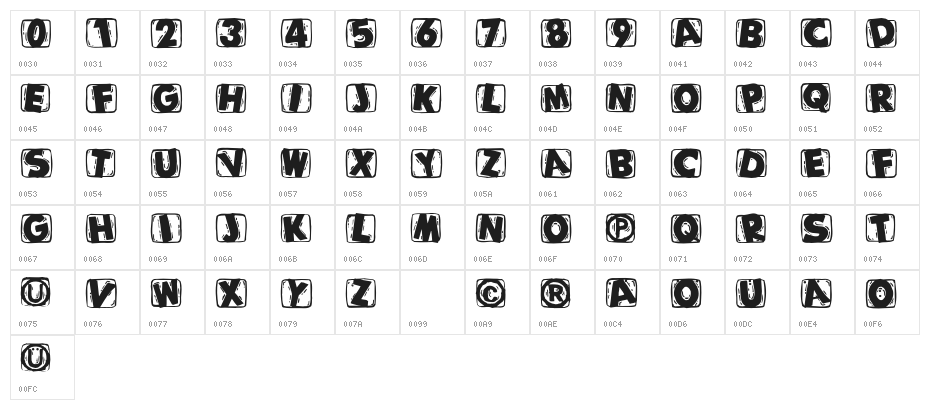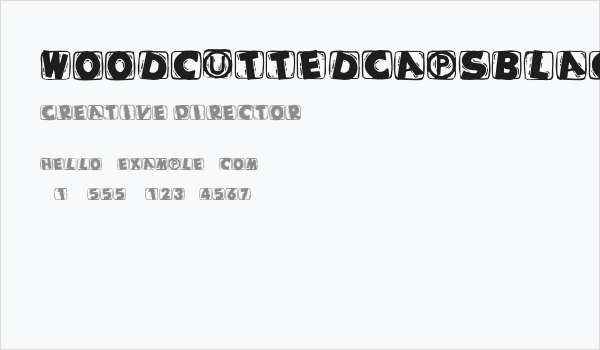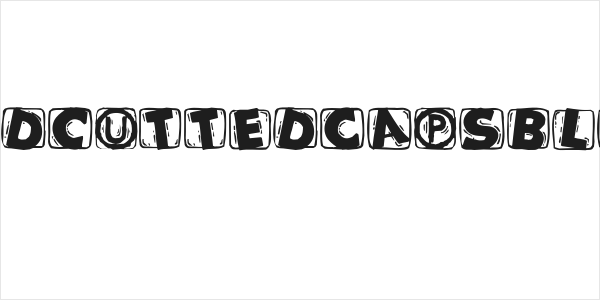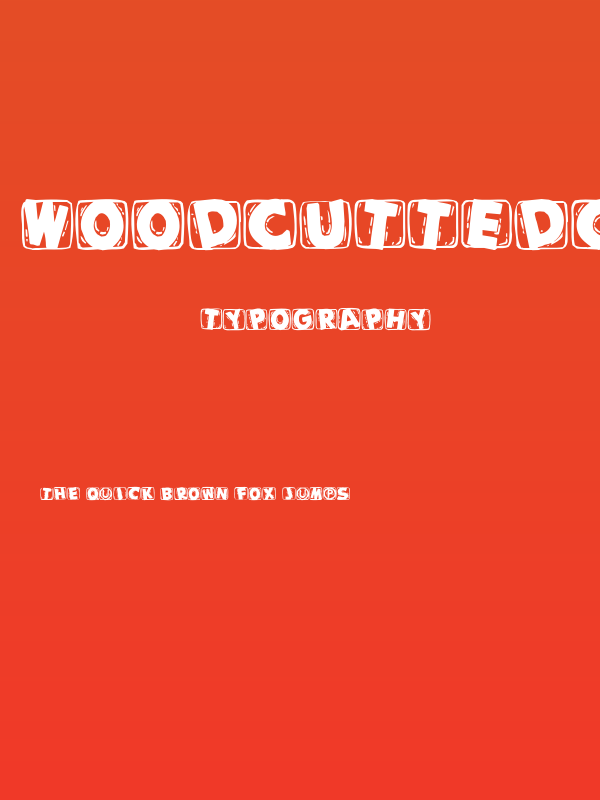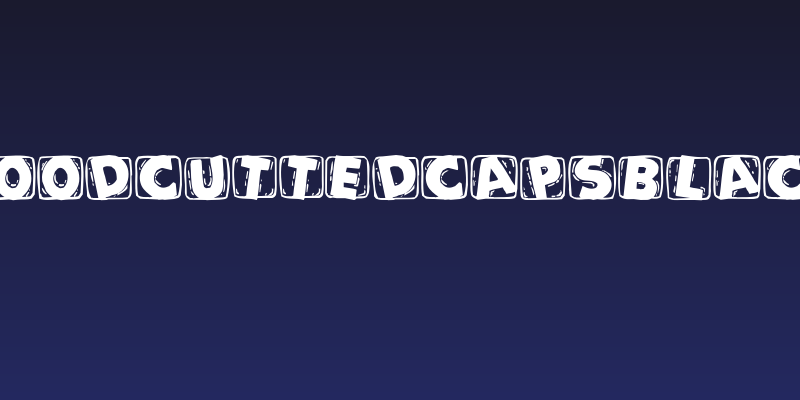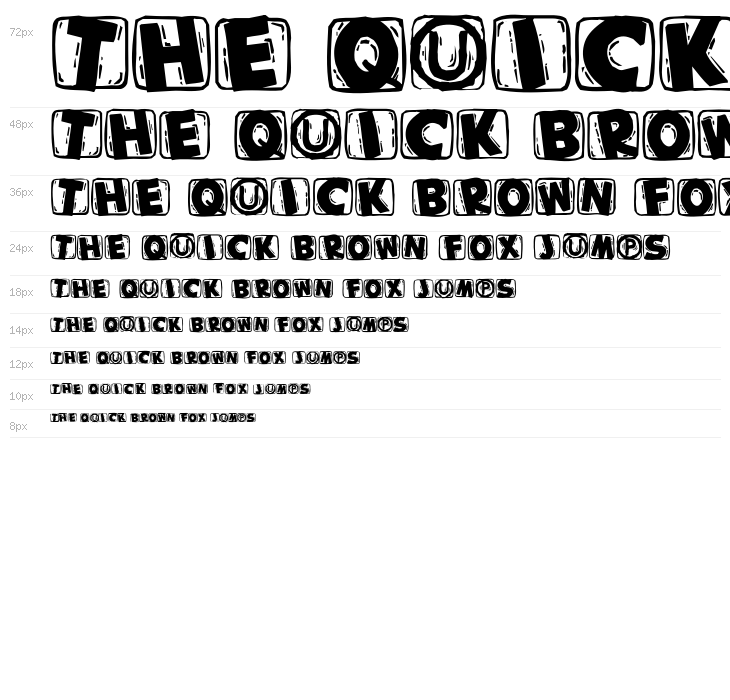
WoodcuttedCapsBlack Font
WoodcuttedCapsBlack Description
This font features a bold, woodcut-inspired design with a distinct hand-carved appearance. Each character is enclosed in a square, giving it a blocky, robust look. The letters and numbers have a rough, textured surface that mimics the imperfections of traditional woodcut printing, adding a rustic and artisanal feel. The font's boldness and unique style make it stand out, while the enclosed characters create a uniformity that is visually striking. The high contrast between the thick, black strokes and the white background enhances readability and impact.
| Use Case | Logos, Posters, Branding |
| Proposed Projects | Ideal for projects requiring a rustic or vintage aesthetic, such as posters, logos, branding for artisanal products, or book covers. |